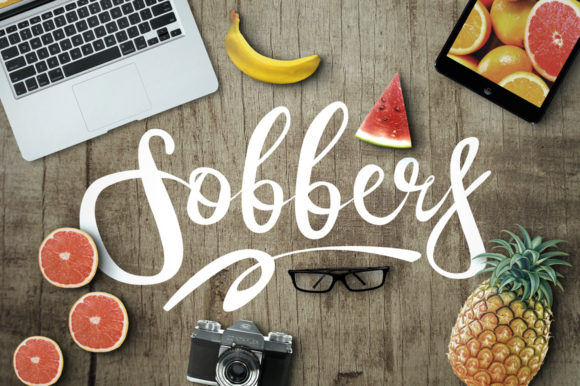
Sobbers Font
Sobbers is a script font that will lend your designs an authentic and handmade feel. This beautiful font is perfect for creating logos, invitations, and any other project that needs a touch of elegance.
Sobbers is available in two weights, regular and bold, so you can choose the perfect look for your project. It also includes a full set of uppercase and lowercase letters, numbers, and symbols, so you can create any text you want.
Whether you're a professional designer or a hobbyist, Sobbers is a great choice for your next project. Its unique style will help your designs stand out from the crowd.
Here are just a few of the ways you can use Sobbers:
* Create logos for your business or brand
* Design invitations for weddings, parties, and other special events
* Make custom t-shirts, mugs, and other products
* Add a personal touch to your blog or website
* Use it in your social media posts to make your content more engaging
With its versatility and charm, Sobbers is the perfect font for any project that needs a touch of elegance and personality.